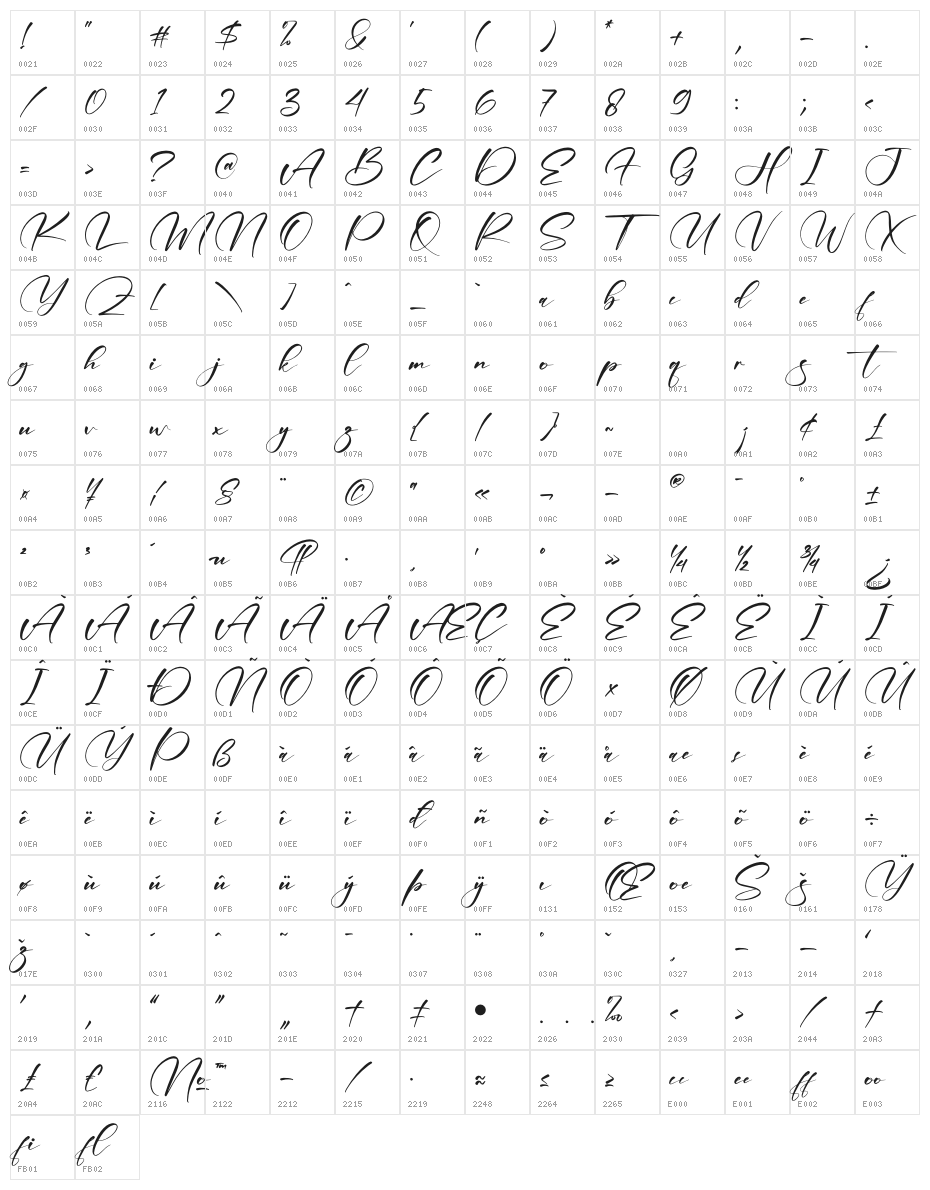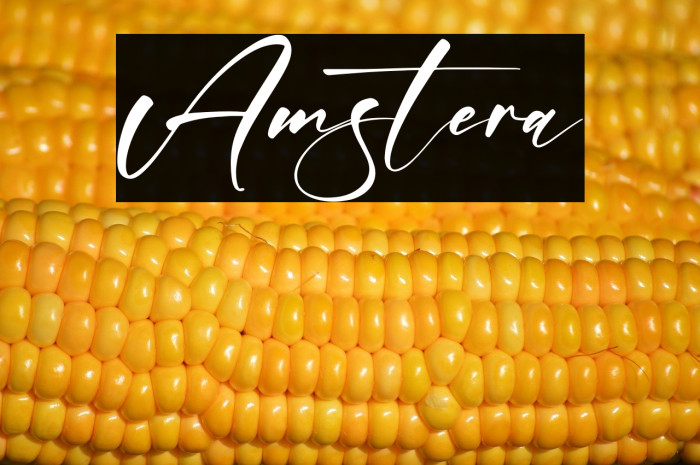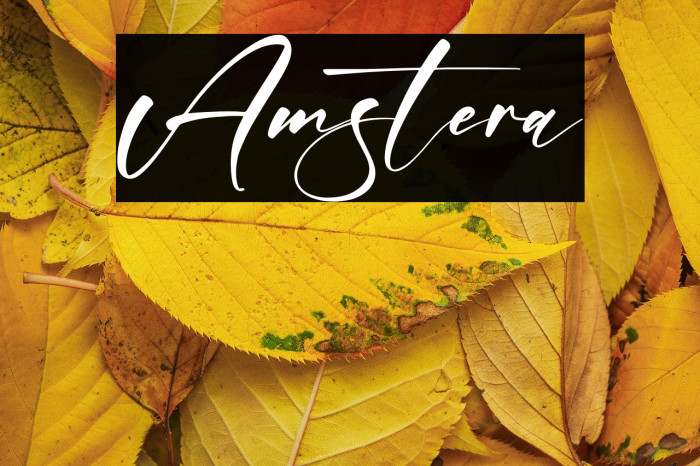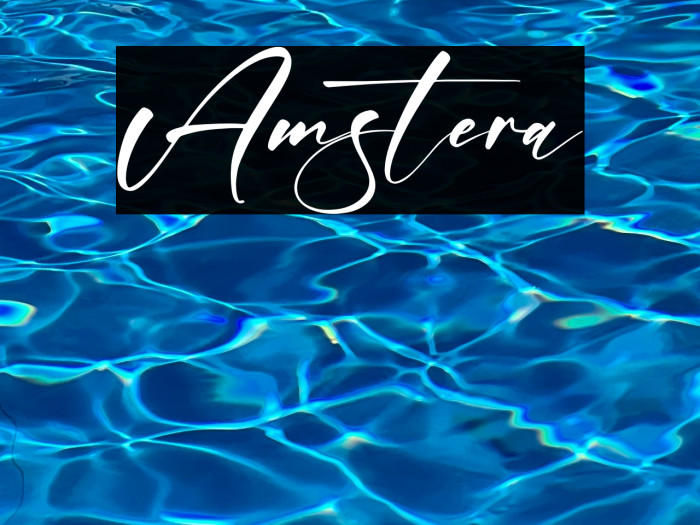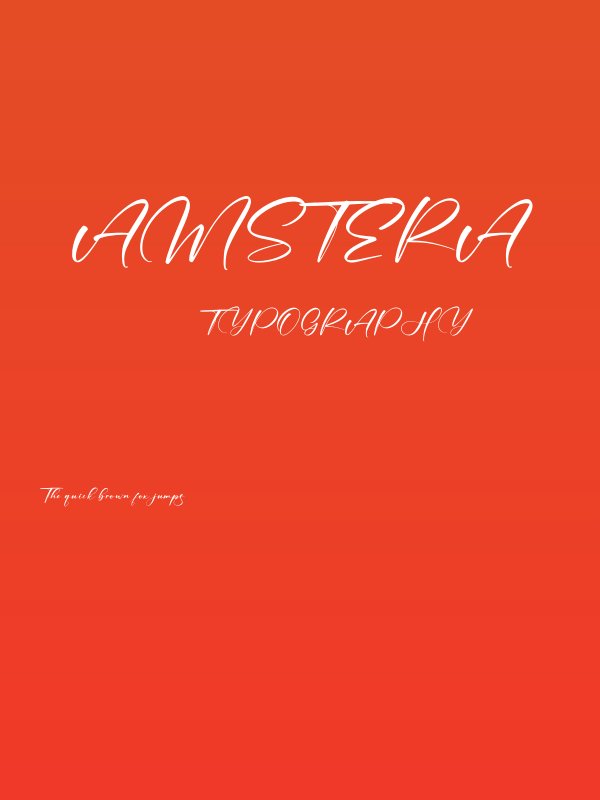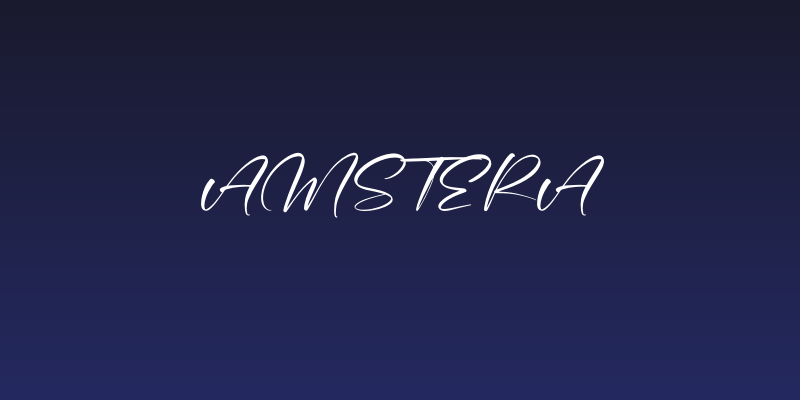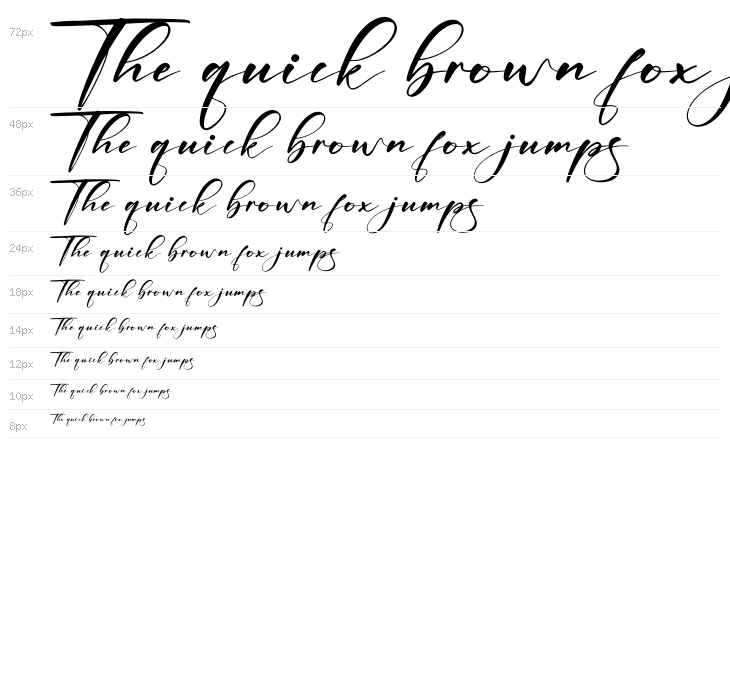
Amstera Font
Amstera Description
This font exudes elegance and sophistication with its fluid, cursive style. The characters are connected in a smooth, flowing manner, reminiscent of traditional calligraphy. The uppercase letters are tall and graceful, while the lowercase letters maintain a consistent rhythm and balance. The numerals and special characters are designed to complement the overall aesthetic, ensuring a cohesive look. The font's high contrast in stroke thickness adds to its dramatic flair, making it ideal for projects that require a touch of class and refinement.
| Proposed Projects | Ideal for wedding invitations, luxury branding, elegant stationery, and high-end product packaging. |